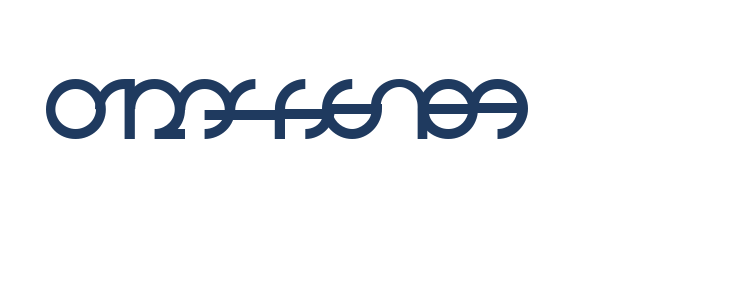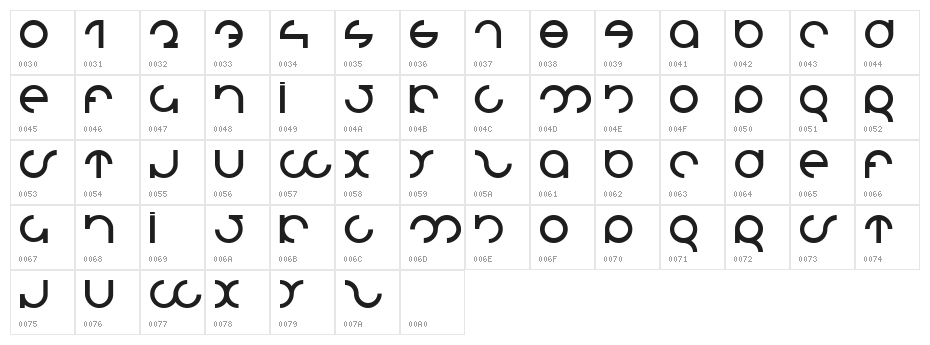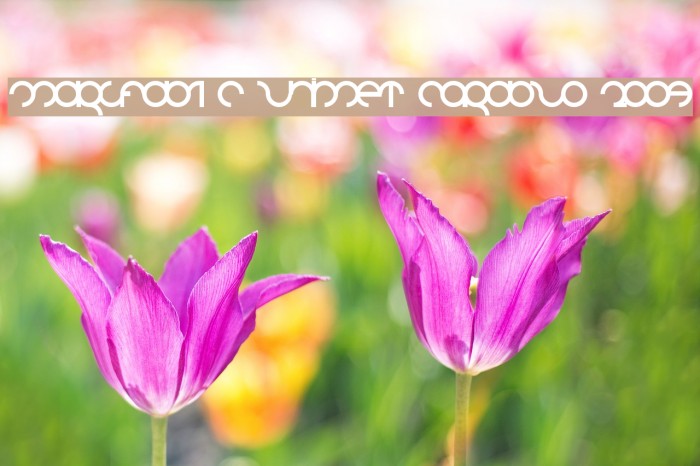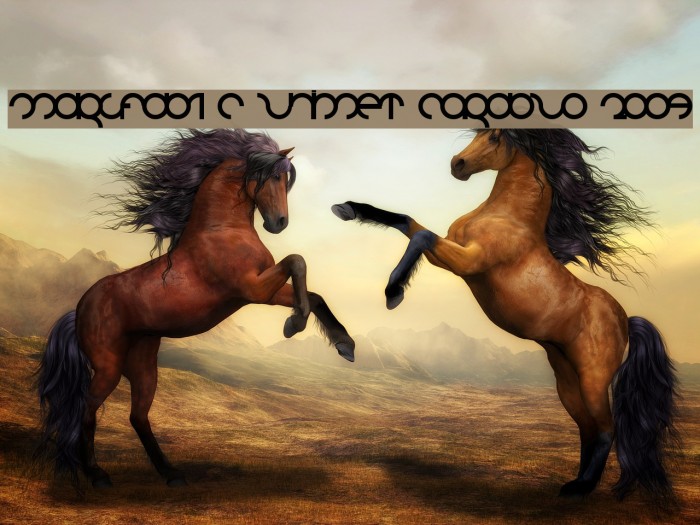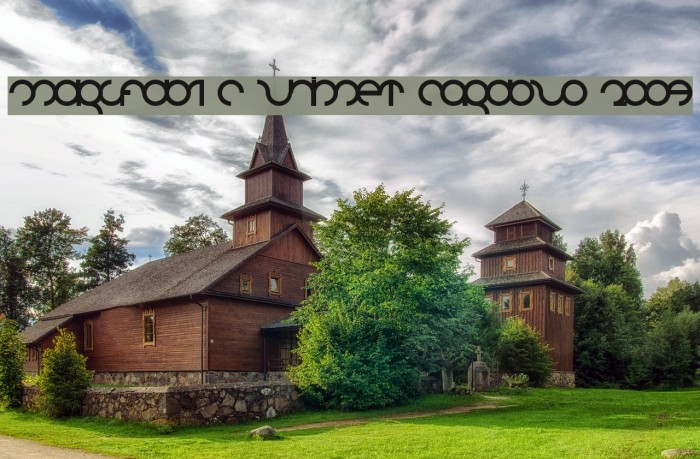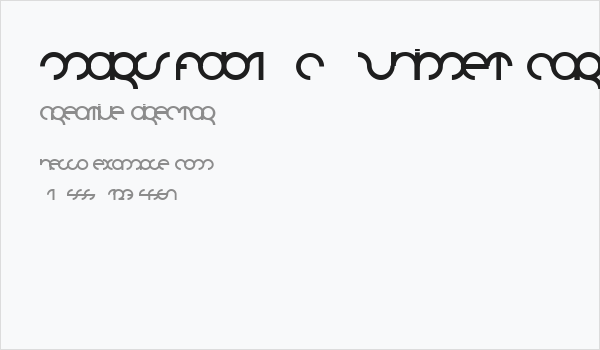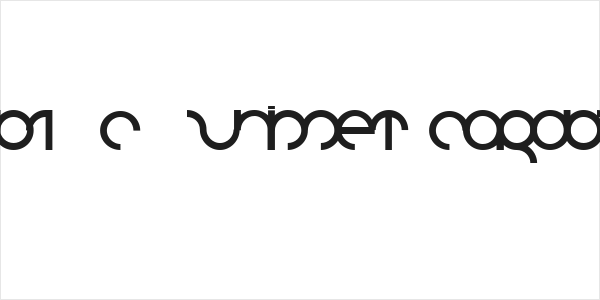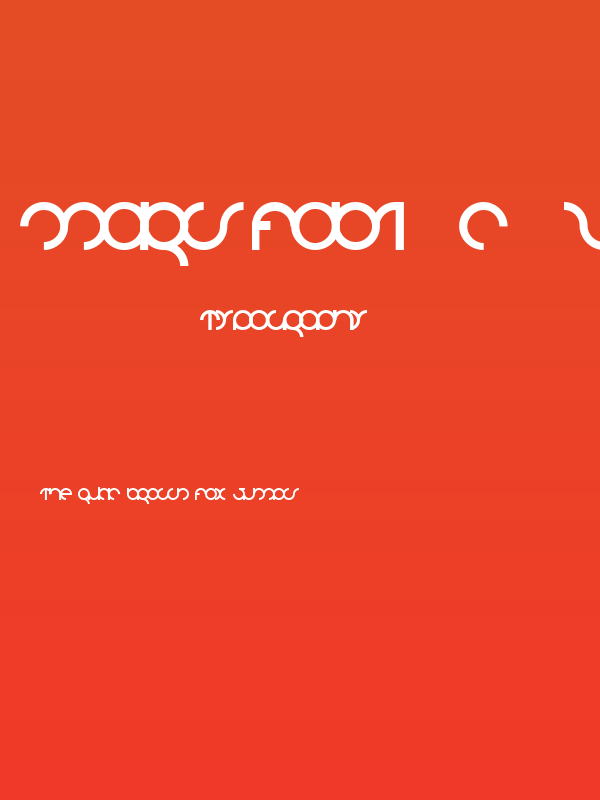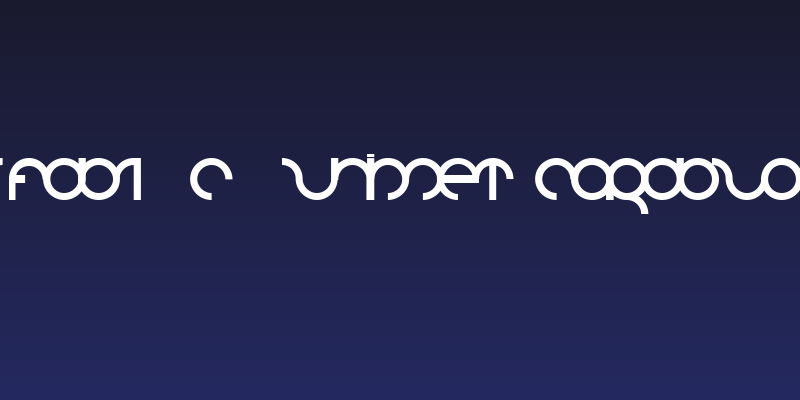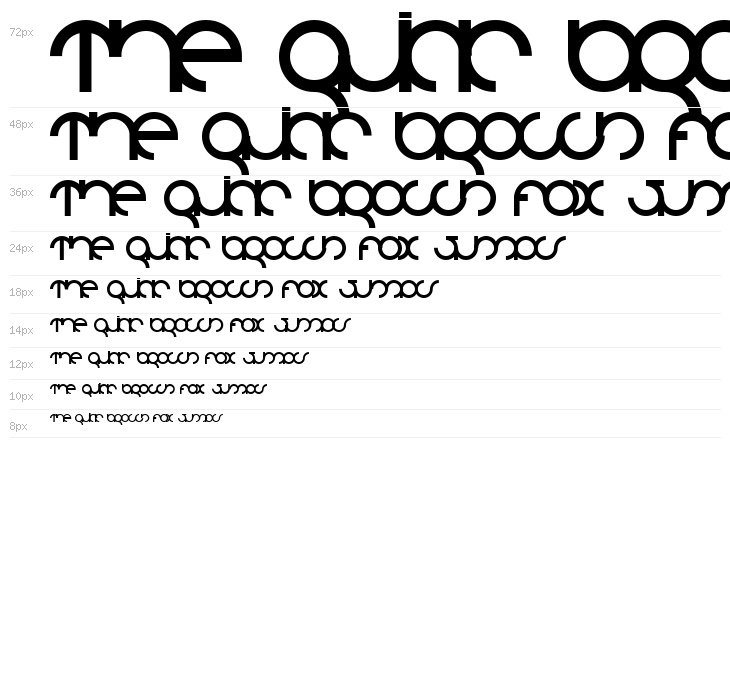
MDRS-FD01 [c] Zhimet cardozo, 2009 Font
MDRS-FD01 [c] Zhimet cardozo, 2009 Description
This font features a highly stylized and modern design, characterized by its unique geometric shapes and bold, interconnected letterforms. The characters are crafted with a consistent stroke width, creating a uniform appearance across the entire set. The design incorporates circular and semi-circular elements, giving it a futuristic and avant-garde feel. The font's distinctiveness is further enhanced by its symmetrical and mirrored aspects, making it stand out in any design project. The overall aesthetic is both artistic and functional, suitable for creative and innovative applications.
| Proposed Projects | Ideal for branding, logos, posters, and digital media that require a contemporary and artistic touch. |